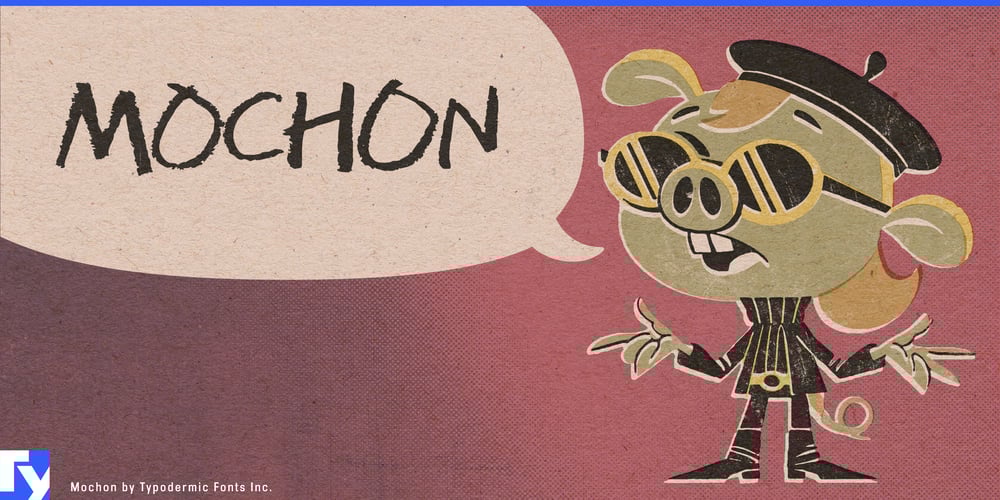
Mochon
Mochon font
Mochon Font Family was designed by Ray Larabie and published by Typodermic. Mochon contains 1 styles and family package options. Mochon isn’t just another typeface—it’s a creative homage to Donald Mochon, the former dean of RPI’s School of Architecture, whose innovative spirit lives on through every curve and line. This hand-lettered gem captures the essence of architectural design, infusing your projects with a delightful blend of erudition and whimsy.Imagine blueprints that speak volumes, presentations that captivate, and branding that stands out from the crowd. Mochon’s automatic shuffling of alphabetic variations brings a lively, bouncy feel to your designs, ensuring each use is as unique as your vision. And for those moments when precision meets personality, watch as the letter “I” sprouts serifs in initials and possessives, adding a touch of typographic flair. But Mochon doesn’t stop there. For the true typography aficionados, an alternate “S” awaits discovery through OpenType-enabled applications, offering even more customization possibilities. This versatility makes Mochon the perfect choice for architects, designers, and creatives who refuse to settle for the ordinary.From sleek modern designs to quirky creative projects, Mochon adapts seamlessly, ready to elevate your work with its distinctive character. It’s equally at home gracing the facade of a cutting-edge building or bringing charm to a boutique’s branding. And with its extensive language support covering a vast array of Latin-based European writing systems, Mochon ensures your message resonates across borders and cultures.Ready to infuse your designs with the wild energy and creative spirit? It’s time to let Mochon work its magic.